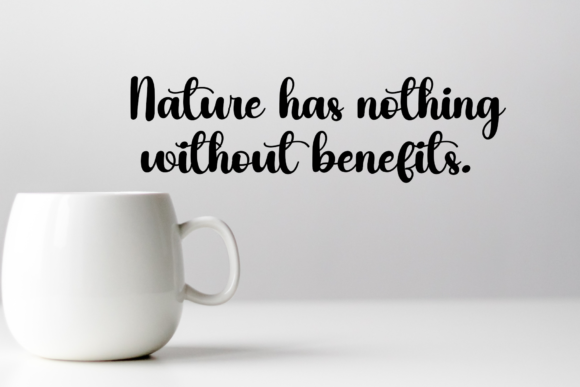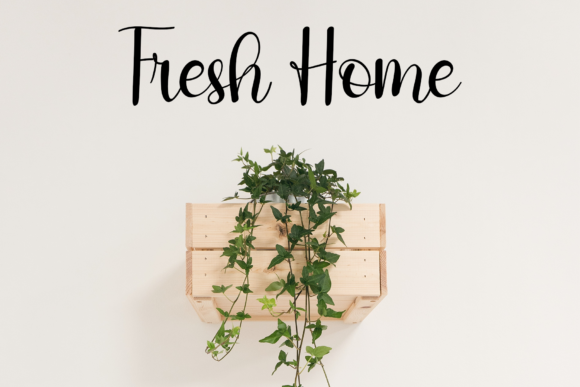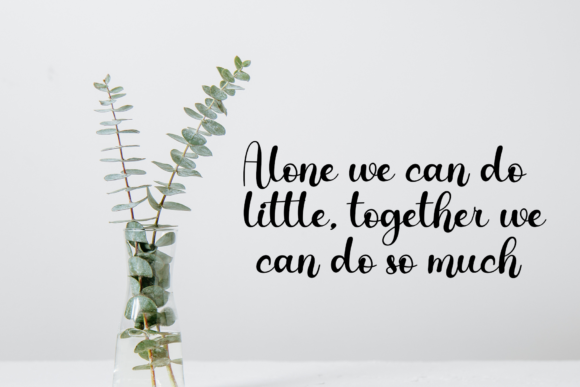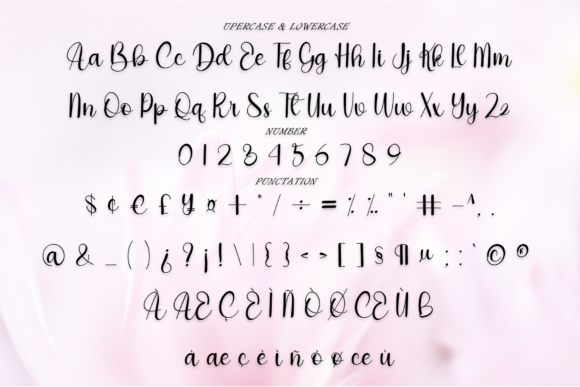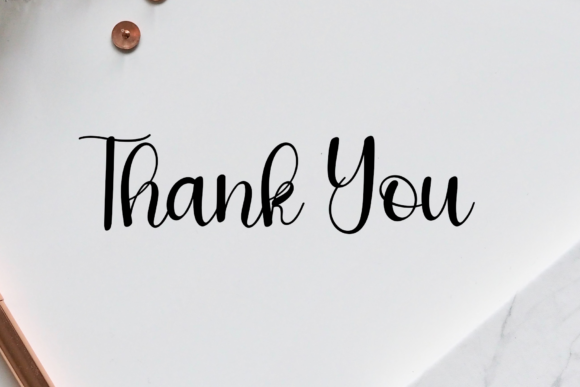
Andara Font
About Andara Font
Introducing Andara, a unique and round-lettered handwritten font meticulously crafted to achieve the desired results. This font offers a distinct aesthetic and can be seamlessly applied to write titles, invitations, letters, and a wide range of other creative products.
The uniqueness of Andara lies in its round-lettered design, which adds a touch of originality and character to each letterform. Imagine using this font to write captivating titles that draw attention with their distinctive and playful style. Envision it on invitations, where the rounded letters create a friendly and approachable atmosphere. Whether applied to letters or any other creative project, Andara becomes a versatile tool for adding a unique and personalized touch.
The carefully crafted nature of Andara ensures that it brings a cohesive and visually appealing look to your projects. Its round letterforms contribute to a friendly and inviting vibe, making it suitable for a variety of applications.
Choose Andara as the font that brings a unique and round-lettered charm to your creative endeavors. Let its distinctive style elevate the impact of your titles, invitations, letters, and more. Allow Andara to be the creative touch that sets your projects apart with its original and carefully crafted design.